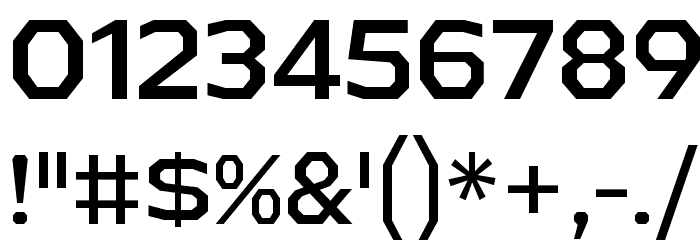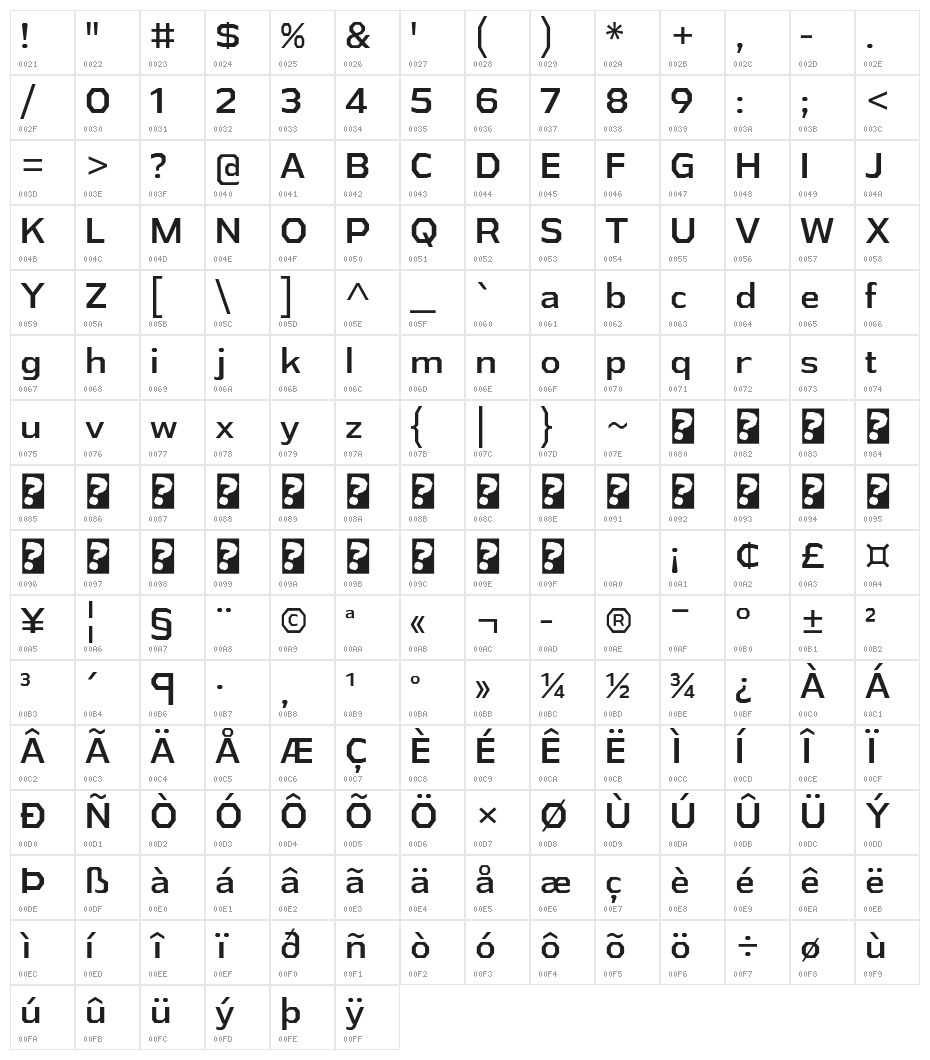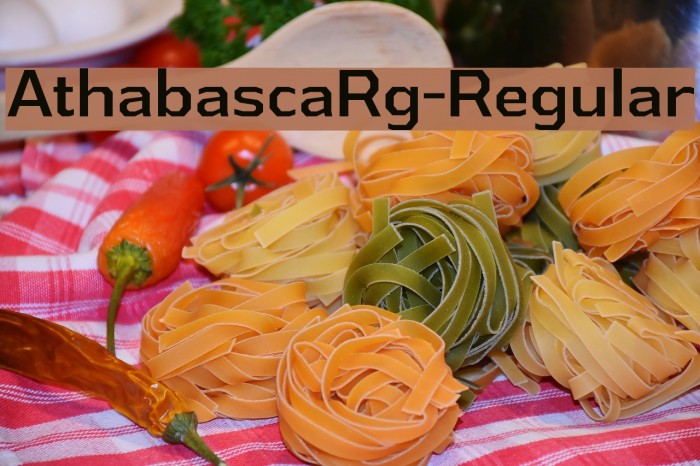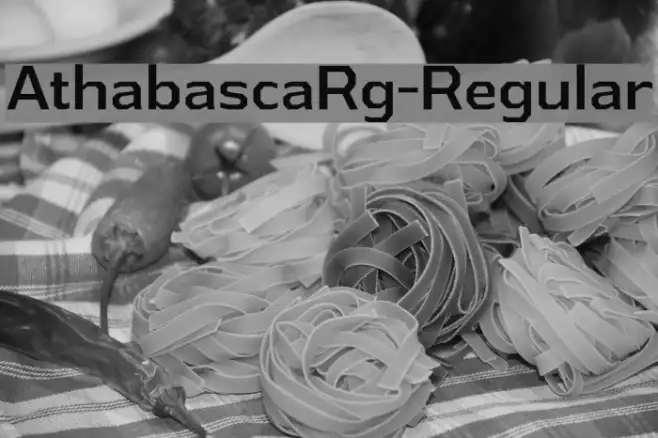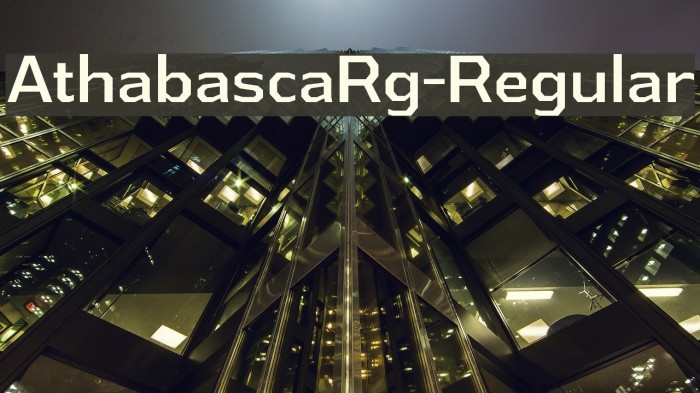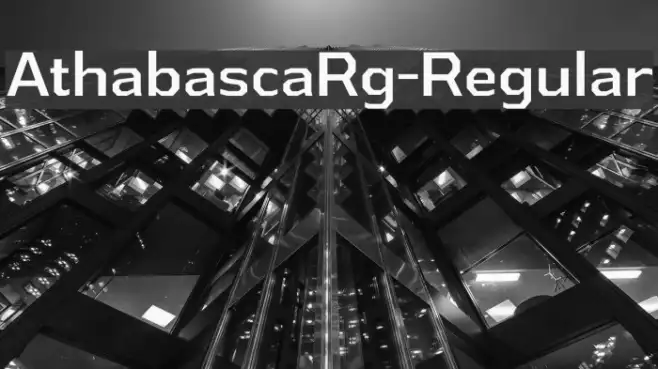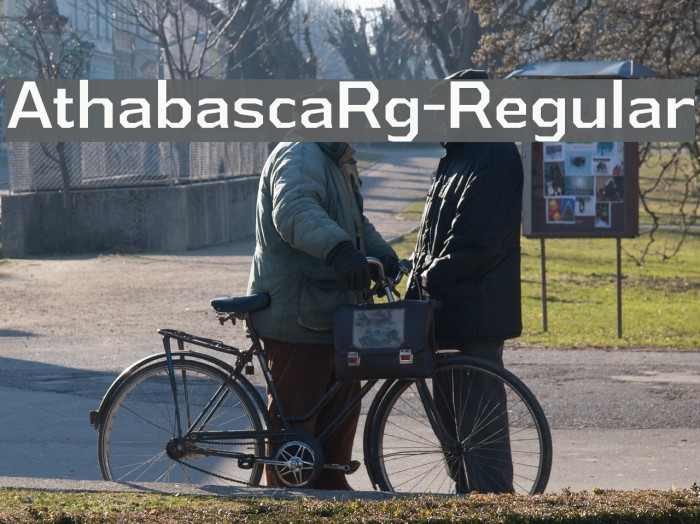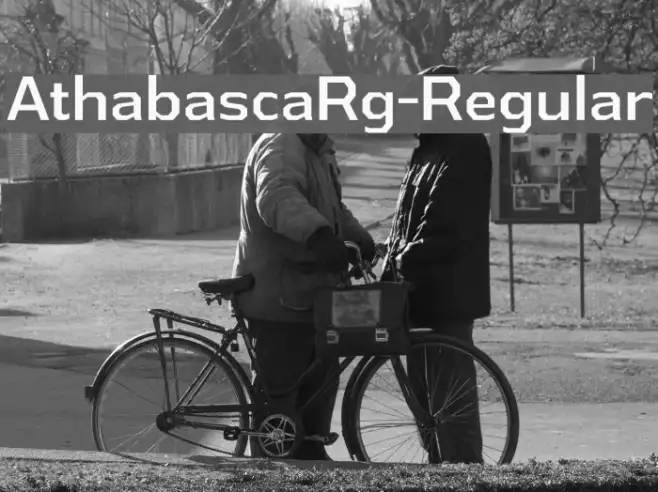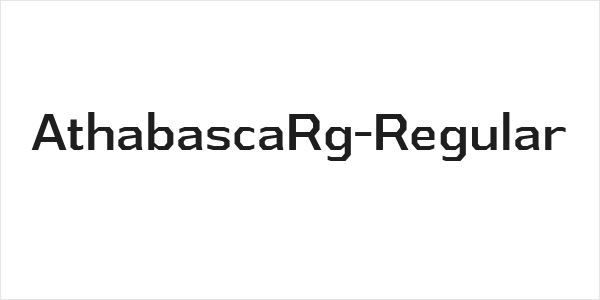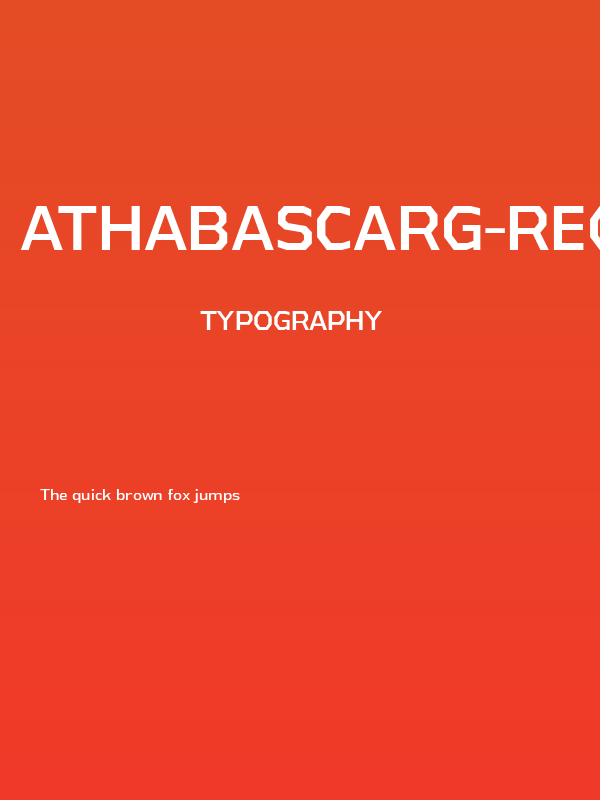
AthabascaRg-Regular Font
AthabascaRg-Regular Description
This font features a geometric and modern design with a strong, bold presence. The characters are constructed with clean, straight lines and sharp angles, giving it a futuristic and technical appearance. The uppercase and lowercase letters maintain a consistent style, with a uniform stroke width that adds to its boldness. The numerals and special characters follow the same design principles, ensuring a cohesive look across all glyphs. Its structured form and clarity make it highly legible, even at smaller sizes.
| Use Case | Headlines, Logos, Signage |
| Proposed Projects | Ideal for technology branding, modern web design, signage, and editorial headlines. |